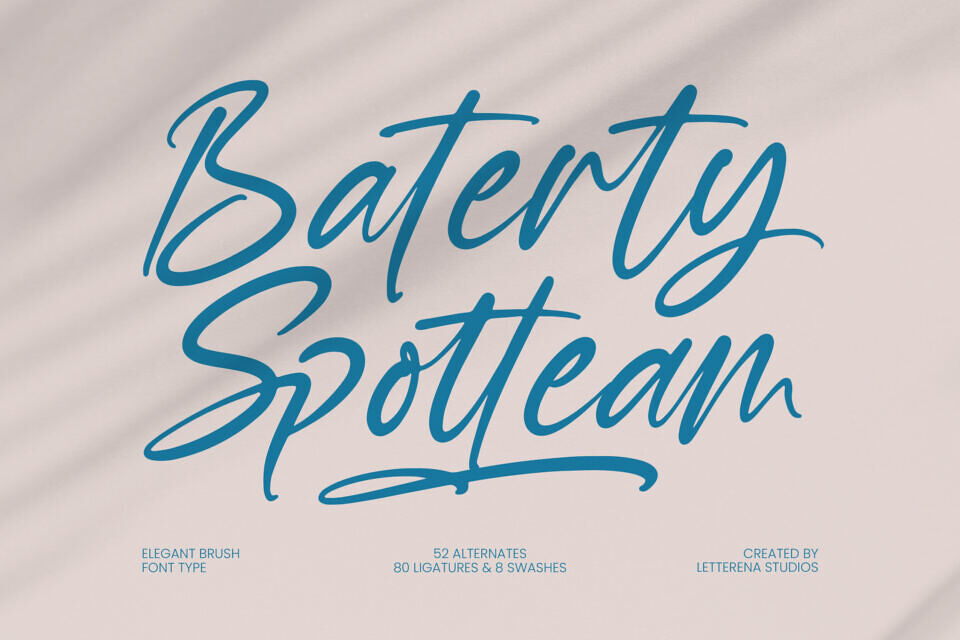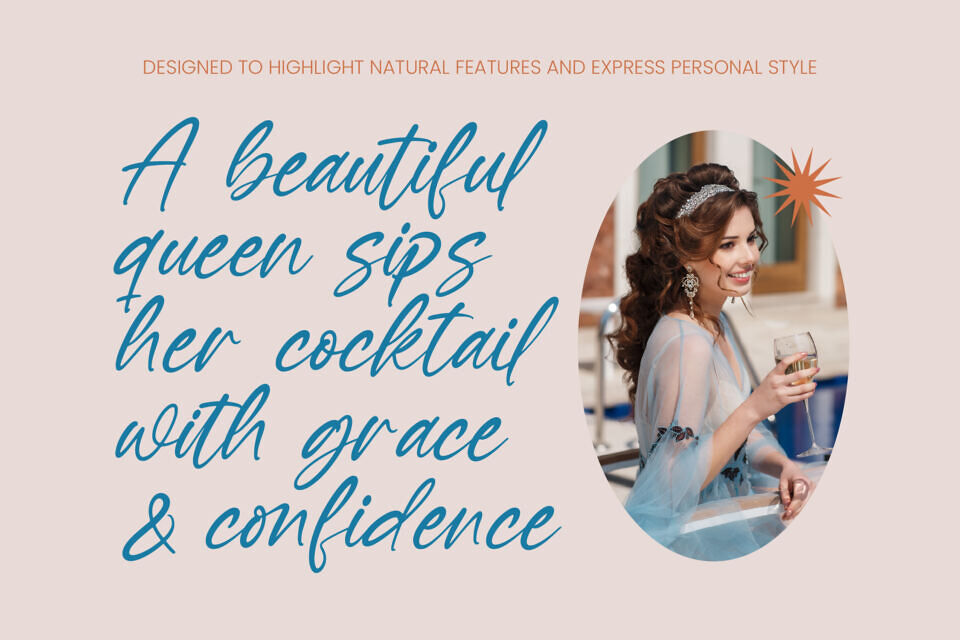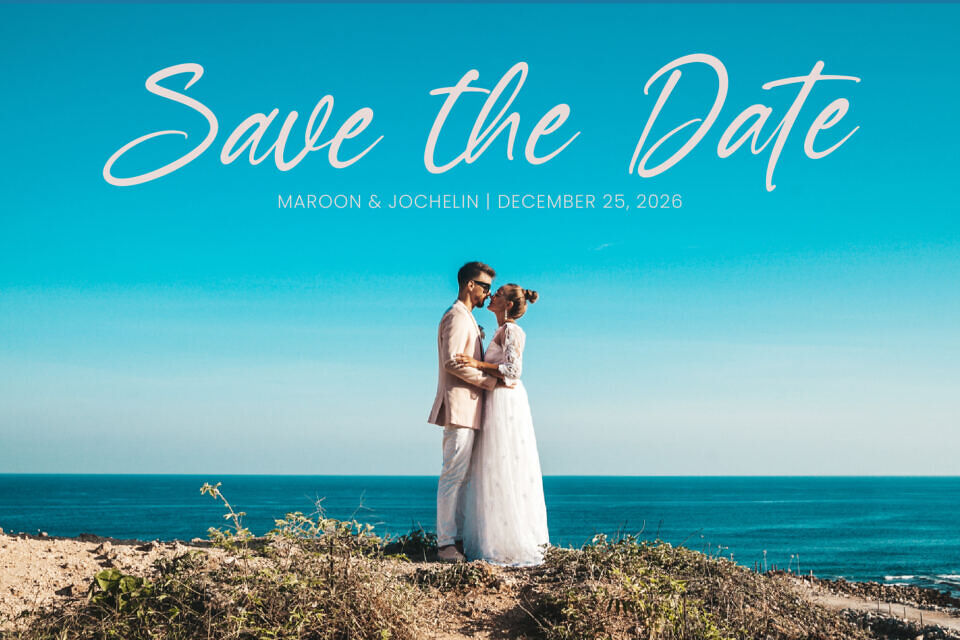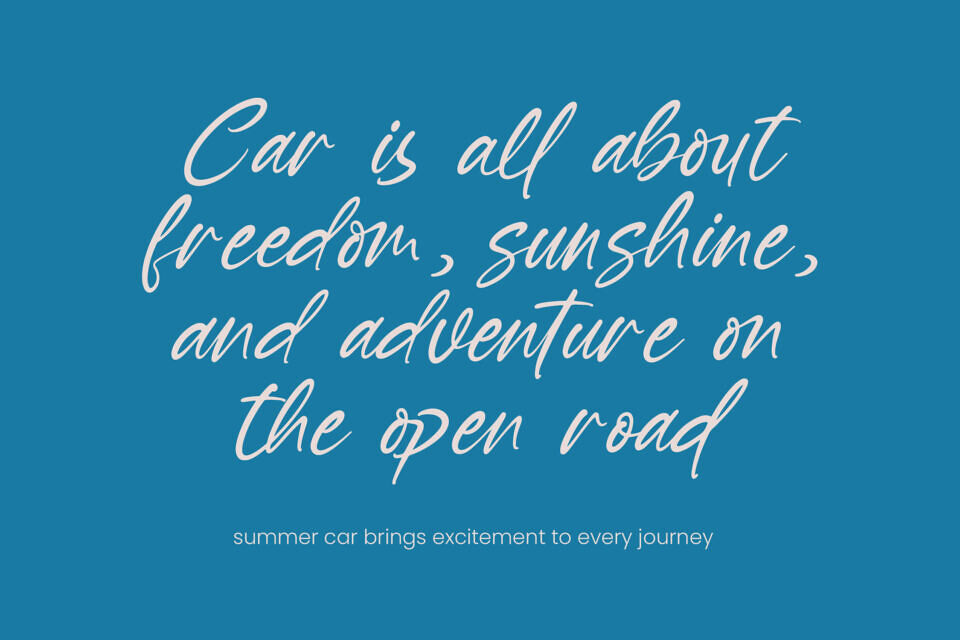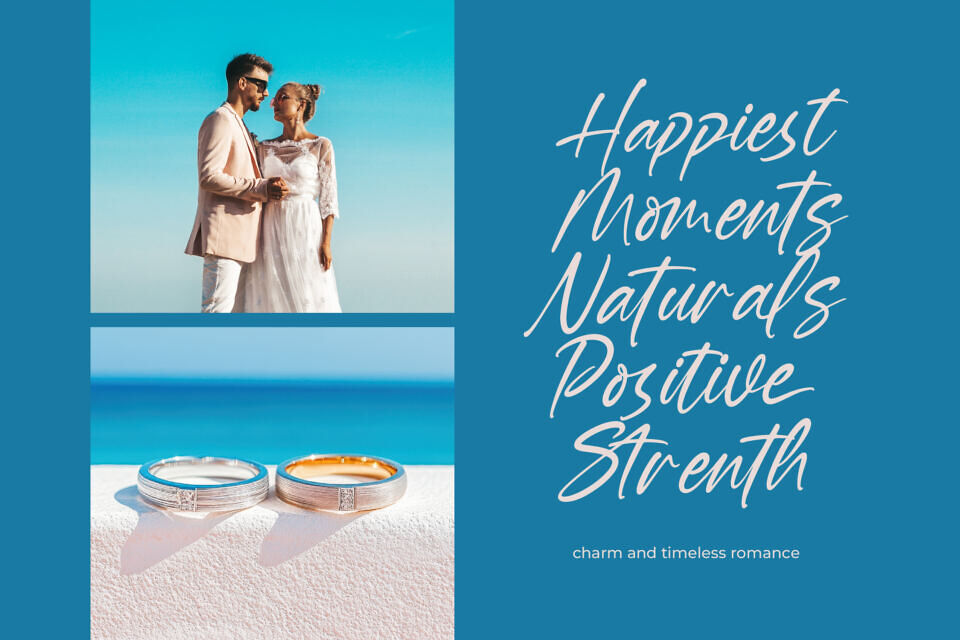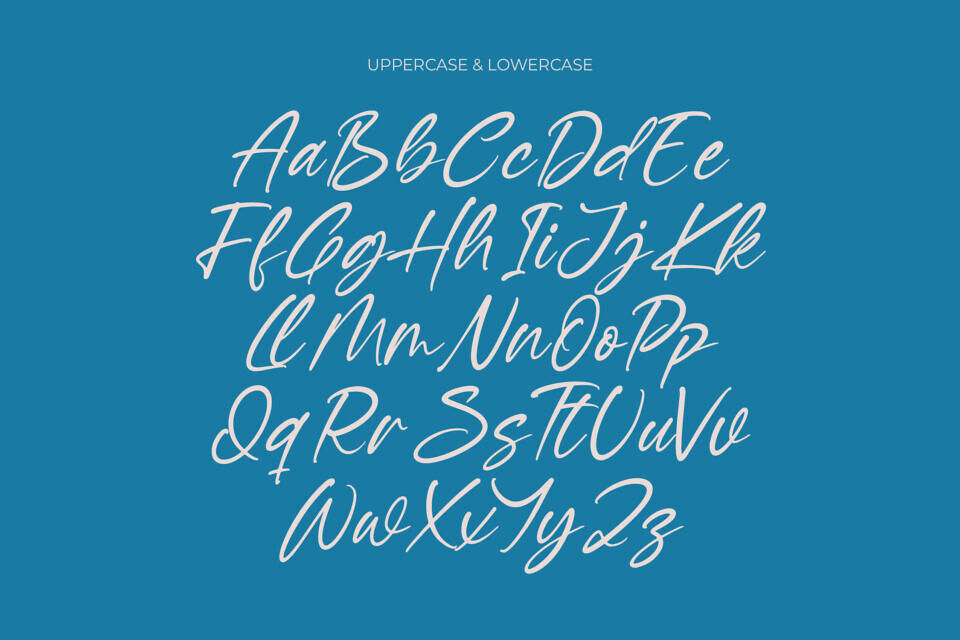
Baterty Spotteam is an Elegant Brush Luxury Script font from Letterena, suitable for any projects such as: logos, branding projects, homeware designs, product packaging, mugs, quotes, posters, shopping bags, t-shirts, book covers, name card, invitation cards, greeting cards, label, photography, watermark, special events, and all your other luxury and beautiful projects that need a Luxury Script taste.